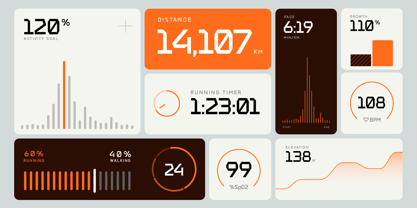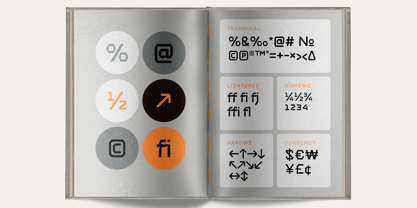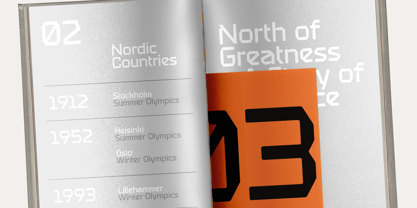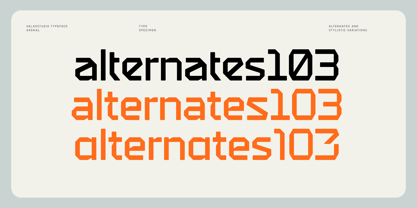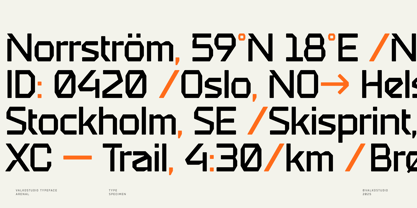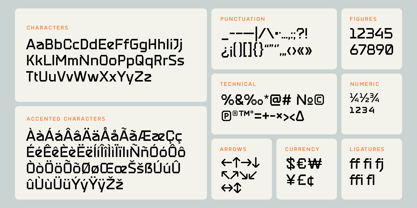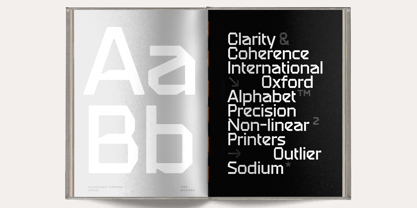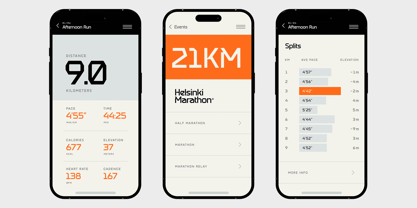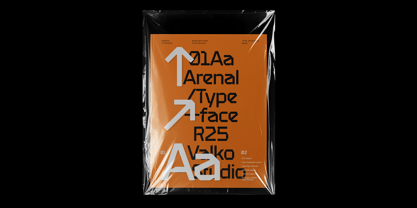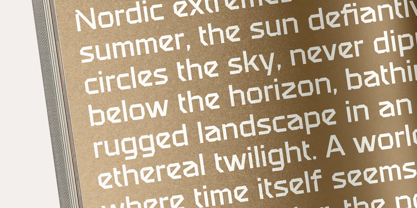
Arenal
by Valko Studio
The Arenal Font Family was designed by Tuomo Valkonen and published by Valko Studio. Arenal contains 1 styles. More about this family
Arenal is an angular, geometric display typeface inspired by a Scandinavian sports retailer. With its constructed, rounded, angular forms, Arenal combines clean and technical design with bold and athletic style. Its sharp, aggressive forms are tempered by subtle curves, creating a distinctive and strong voice. The singular weight typeface has extended Latin language support and includes ligatures and stylistic alternates.